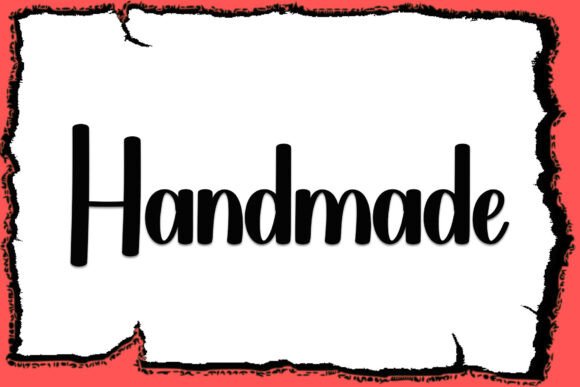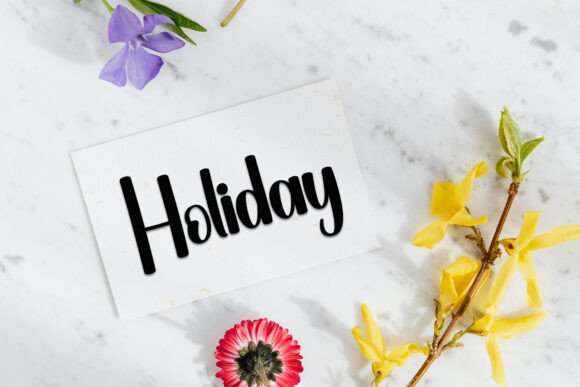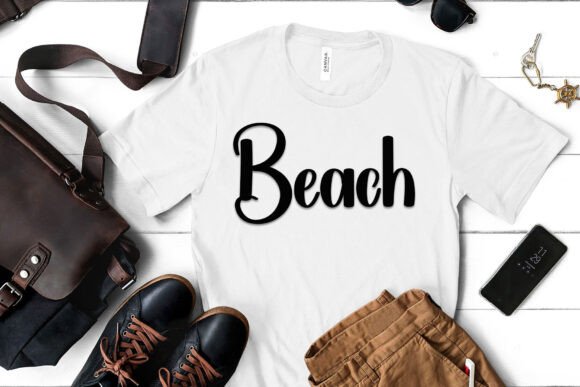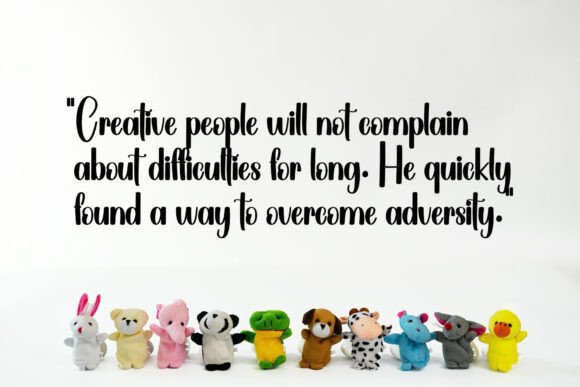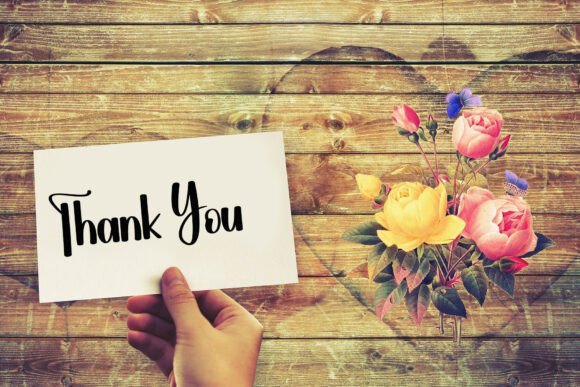
The Delight Font: A Timeless Choice for Creative Projects
Have you ever been in the middle of a design project, and suddenly, you’re stuck on finding the perfect font? I recall a recent experience where I was working on a client’s branding project, and I just couldn’t seem to find a font that captured the essence of their elegant and sophisticated brand. That’s when I stumbled upon the Delight font, and it instantly became my go-to choice. In this article, I’ll share my love for this beautiful handwritten font, its features, and how to make the most of it in your designs.
A Personal Review of Delight Font
What I Love About Delight Font
- ✨ Elegant and sophisticated feel: Delight font exudes a sense of refinement and luxury, making it perfect for high-end branding projects.
- ✅ Unique and distinctive style: The font’s unique character set and beautiful handwritten flair make it stand out from more traditional fonts.
- 💫 Highly legible: Despite its elegant feel, Delight font remains highly legible, even at smaller font sizes.
- 🎨 Versatile: Delight font can be used for a wide range of design projects, from logos and branding to invitations and social media graphics.
While Delight font is an excellent choice for many design projects, there are a few quirks to be aware of:
- 🤔 Limited use of bold weights: Delight font comes in a few different weights, but the bold weights may not be as robust as some users would like.
- ⚠️ Occasional kerning issues: As with any font, there may be some kerning issues, particularly with certain character combinations.
- Experiment with OpenType features, such as ligatures and stylistic alternates, to add more flair to your text.
The Story Behind Delight Font
Delight font was designed by a talented typographer who wanted to create a font that captured the essence of elegance and sophistication. With its beautiful handwritten flair and unique character set, Delight font is perfect for designers who want to add a touch of luxury to their projects.
Q: What is Delight font best suited for?
A: Delight font is perfect for a wide range of design projects, from logos and branding to invitations and social media graphics.
Q: Is Delight font available in different weights?
A: Yes, Delight font comes in a few different weights, including regular, bold, and italic.